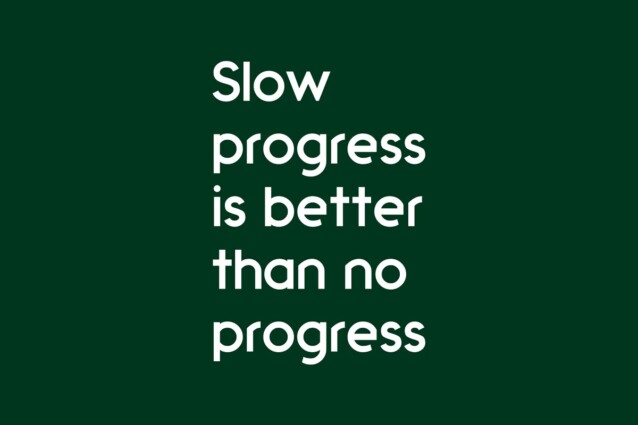
Progress Font
Progress Font is a sans-serif display font crafted & designed by Michał Pieczyński. Inspired by simple, modern shapes. You can use it for a variety of design projects like posters, business cards, invitations, games, covers, social media posts, quote photos, branding, editorials, and much more.